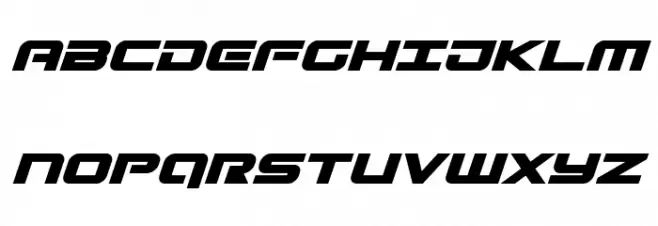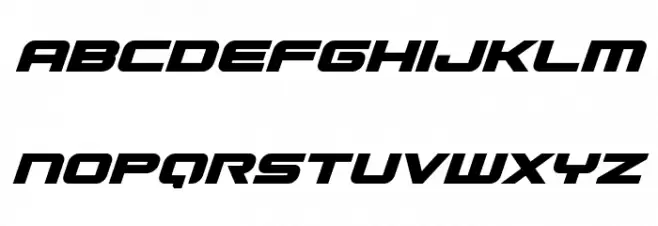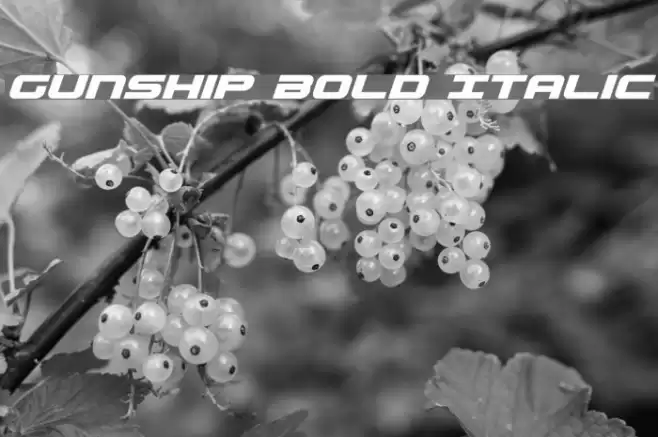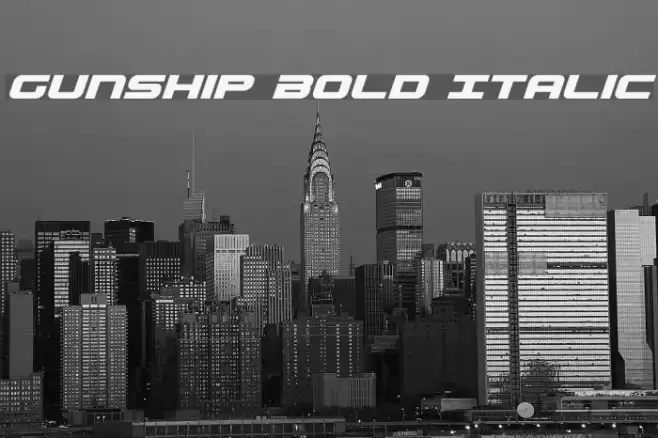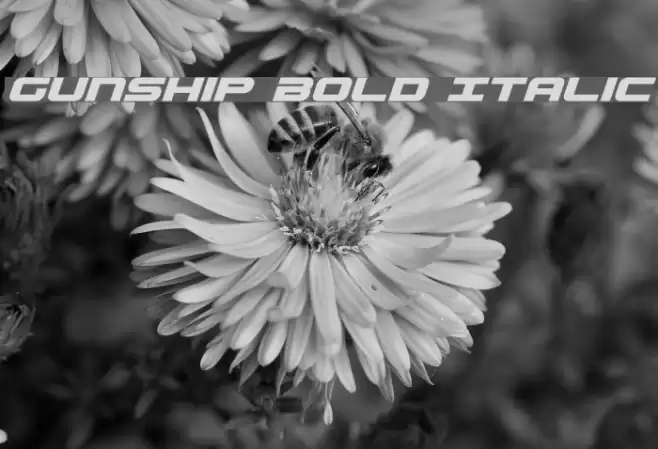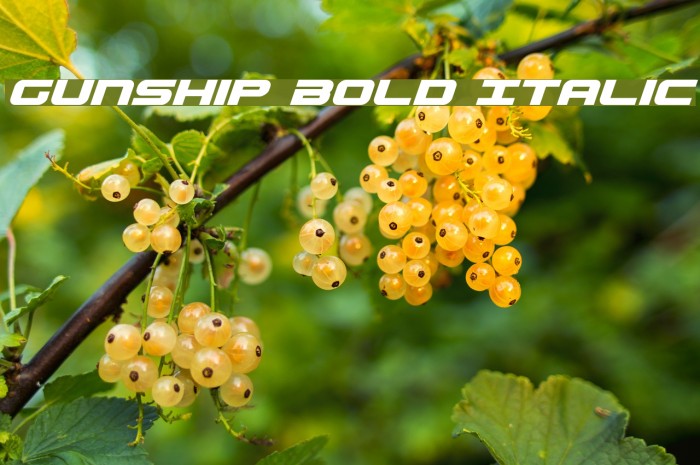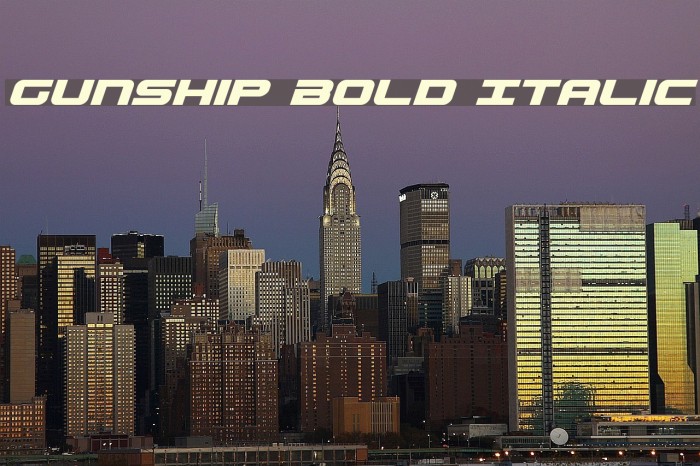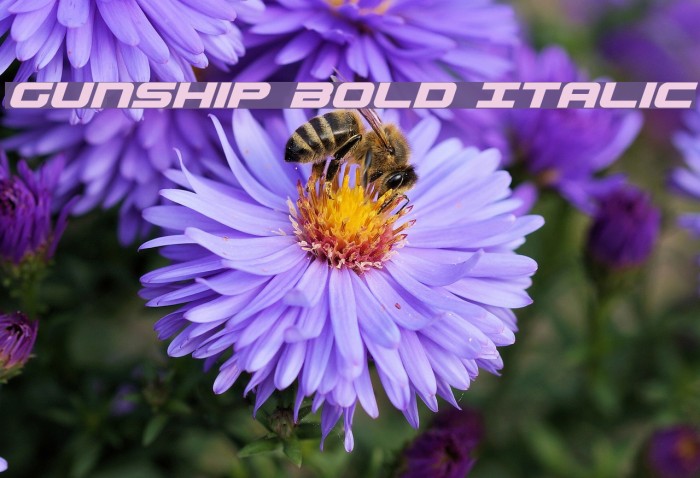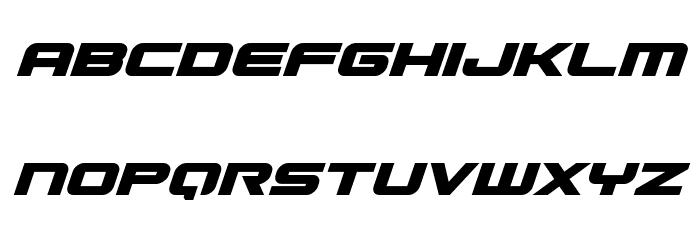
Gunship Bold Italic
This font exhibits a bold and italicized style with a futuristic and dynamic appearance. The characters are designed with sharp angles and a forward-leaning posture, giving a sense of motion and speed. The uppercase and lowercase letters maintain a consistent style, with the lowercase slightly smaller but equally bold. Numbers and special characters are crafted to match the angular and sleek design, ensuring uniformity across all glyphs. The font's bold weight and italic slant make it ideal for attention-grabbing headlines and titles. Its modern and edgy aesthetic is suitable for projects that require a strong visual impact.
A bold, italicized font with a futuristic and dynamic design.
- Proposed Projects: Ideal for sci-fi themed posters, video game titles, technology branding, and sports team logos.